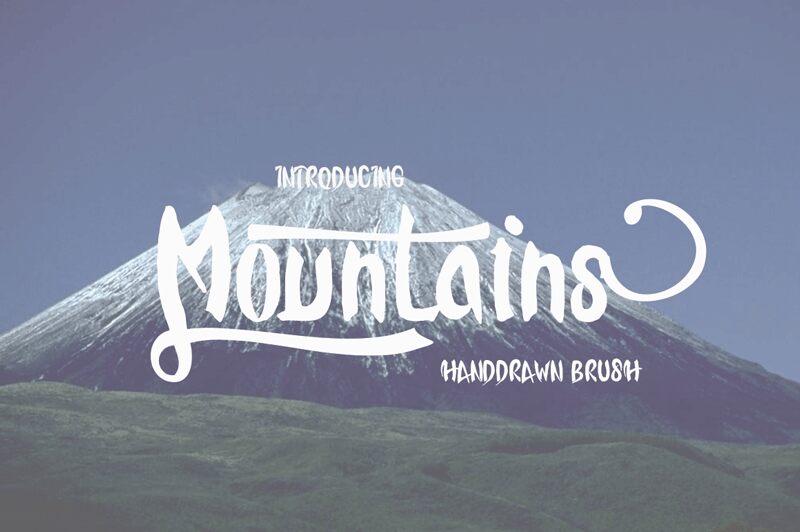
Mountains
The Mountains font, designed by Pollem Studio, is a bold and expressive brush typeface that is perfect for adding an adventurous touch to your designs. With semi-condensed width, this font can be ideal for projects such as travel blogs, outdoor gear branding, and even rustic wedding invitations. Its distinct brush strokes bring a natural and organic feel to any design while the bold weight makes it stand out. Whether you're creating posters or website headings, the Mountains font will make sure your message is seen loud and clear. Add some character to your next project with Mountains!